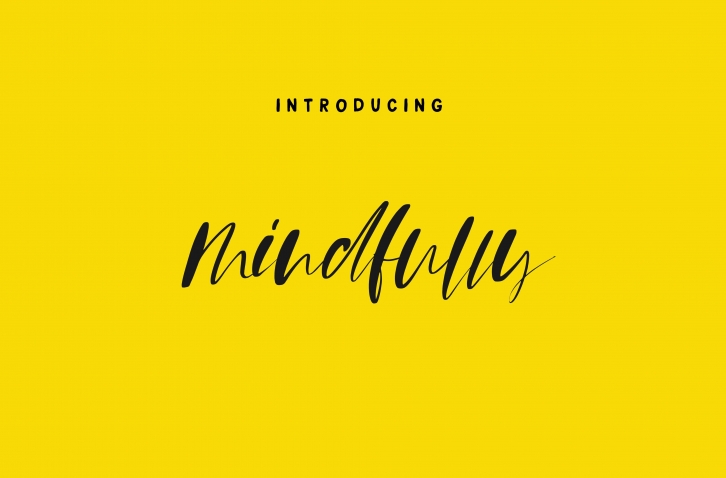
"Mindfully" is a signature font that has been made to give your text a beautiful & calligraphic look. Each letter has been created with lots of thought and love. If you're looking for an elegant yet cute typeface for projects such as logos, printed quotes, invitation cards, social media headers, product packaging, posters and more - this is font is the perfect fit!